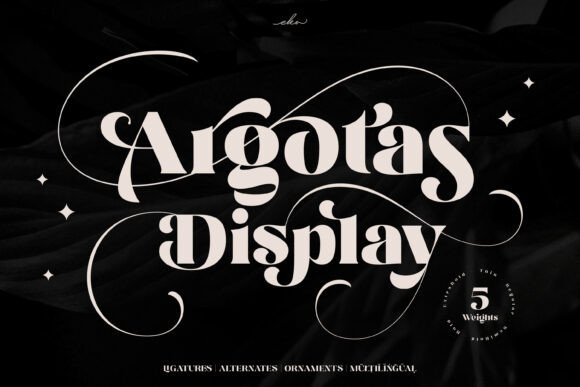
Introducing Argotas Font: Elevate Your Design with Elegance and Versatility
In the world of typography, a font can make all the difference in the success of a design project. A well-crafted font can elevate your work from ordinary to extraordinary, capturing the attention of your audience and conveying your message with style. Argotas Font is one such typographic gem that is sure to become your go-to choice for a wide range of design projects. In this article, we’ll explore the features, benefits, and uses of Argotas Font, and why it’s a must-have for designers and creatives.
What is Argotas Font?
Argotas Font is a unique display font that boasts an impressive range of 5 weights, from Thin to ExtraBold. This versatility allows designers to use Argotas in various contexts, from subtle, elegant headings to bold, eye-catching statements. But what truly sets Argotas apart is its extensive collection of alternative characters, ligatures, and ornament characters. These special features provide endless possibilities for creative expression, enabling designers to add a personal touch to their work.
Key Features of Argotas Font
- 5 Weights: Thin, Light, Medium, Bold, and ExtraBold, ensuring that you have the perfect weight for your design needs.
- Alternative Characters: A wide range of alternative characters to help you add a unique twist to your designs.
- Ligatures: Beautifully crafted ligatures that connect letters in a way that enhances the overall aesthetic of your text.
- Ornament Characters: A variety of ornament characters to add an extra layer of elegance and sophistication to your designs.
Why Choose Argotas Font?
With so many fonts available, why should Argotas be your top choice? The answer lies in its incredible versatility and the value it offers to designers. Argotas Font is not just a font; it’s a design tool that can elevate your work across various platforms and applications. Whether you’re working on a logo design, branding project, poster, magazine headings, labels, quote cards, wedding invitations, merchandise, presentations, advertising, or any other creative endeavor, Argotas Font is the perfect companion.
Use Cases for Argotas Font
- Logo Design: Create memorable and impactful logos with Argotas’ range of weights and ornamental features.
- Branding: Establish a strong brand identity with a font that exudes elegance and professionalism.
- Posters: Grab attention with bold and eye-catching headings that make your posters stand out.
- Magazine Headings: Add a touch of sophistication to your magazine with Argotas’ elegant font styles.
- Labels: Create labels that are both informative and visually appealing.
- Quote Cards: Highlight inspirational quotes with a font that adds emotion and depth.
- Wedding Invitations: Set the tone for a beautiful wedding with elegant and ornate invitations.
- Merchandise: Design merchandise that stands out, from t-shirts to mugs, with Argotas’ unique style.
- Presentations: Elevate your presentations with a professional and clean font that communicates your message effectively.
- Advertising: Create compelling ads that capture attention and drive engagement.
Tips for Getting the Most Out of Argotas Font
To truly leverage the power of Argotas Font, here are some tips:
Experiment with Weights and Styles
Don’t be afraid to mix and match different weights and styles of Argotas Font within your design. This can create visual hierarchy and add depth to your work.
Use Alternative Characters and Ligatures
The alternative characters and ligatures in Argotas Font are there to enhance your designs. Use them to add a personal touch and make your work stand out.
Pair Argotas with Other Fonts
While Argotas Font is stunning on its own, it can also be paired with other fonts to create interesting contrasts. Experiment with font pairings to find the perfect combination for your project.
Argotas Font is more than just a font; it’s a design powerhouse that can transform your creative projects. With its range of weights, alternative characters, ligatures, and ornament characters, Argotas offers endless possibilities for designers looking to elevate their work. Whether you’re a seasoned professional or just starting out, Argotas Font is sure to become your favorite go-to font for a wide range of design applications. So why wait? Explore the world of Argotas Font today and discover a new level of design elegance and versatility.